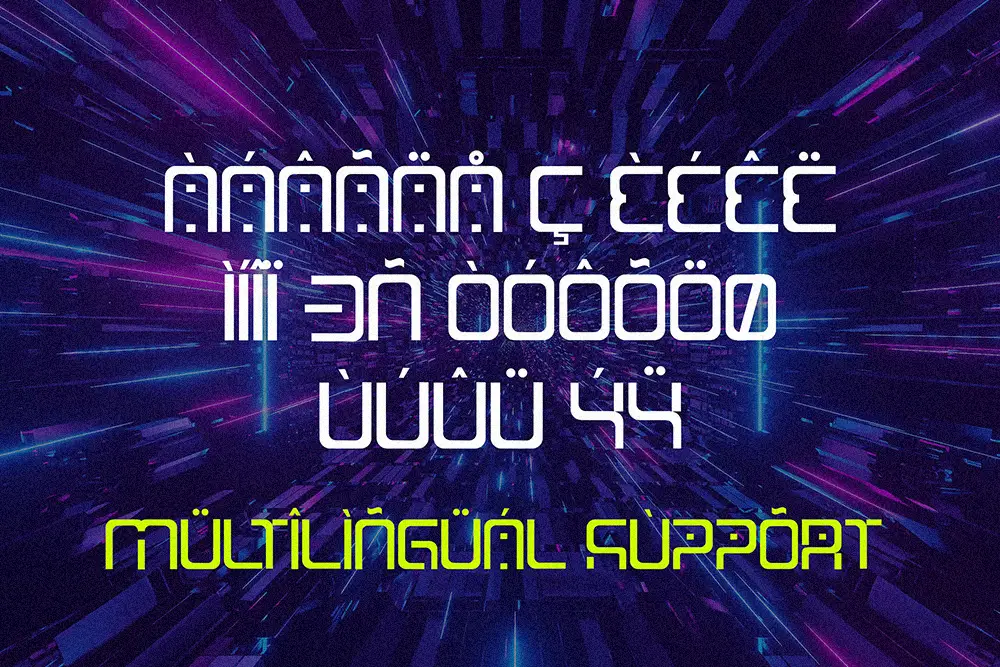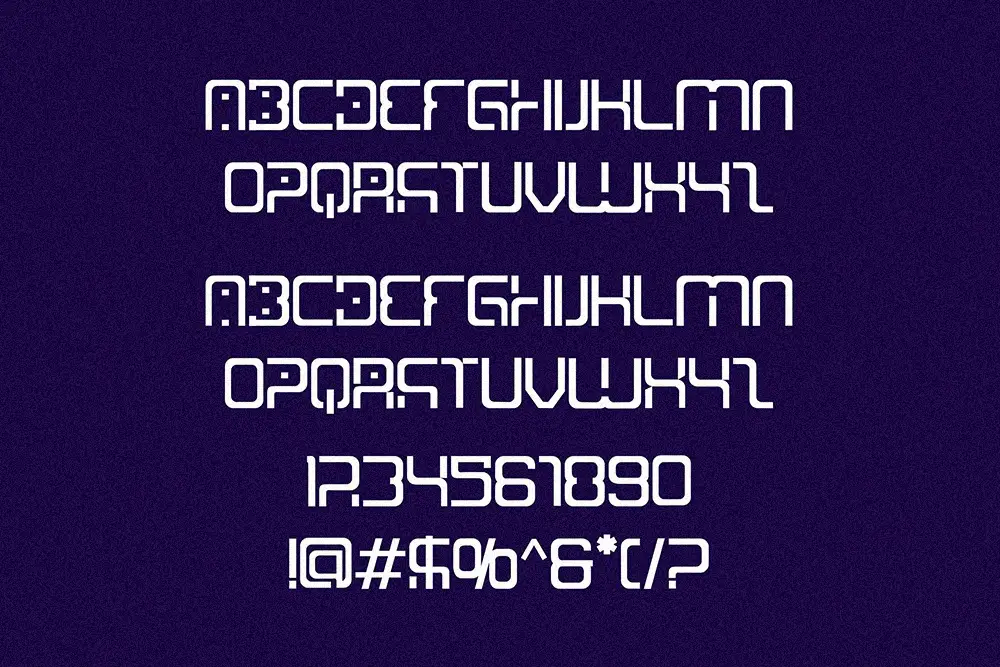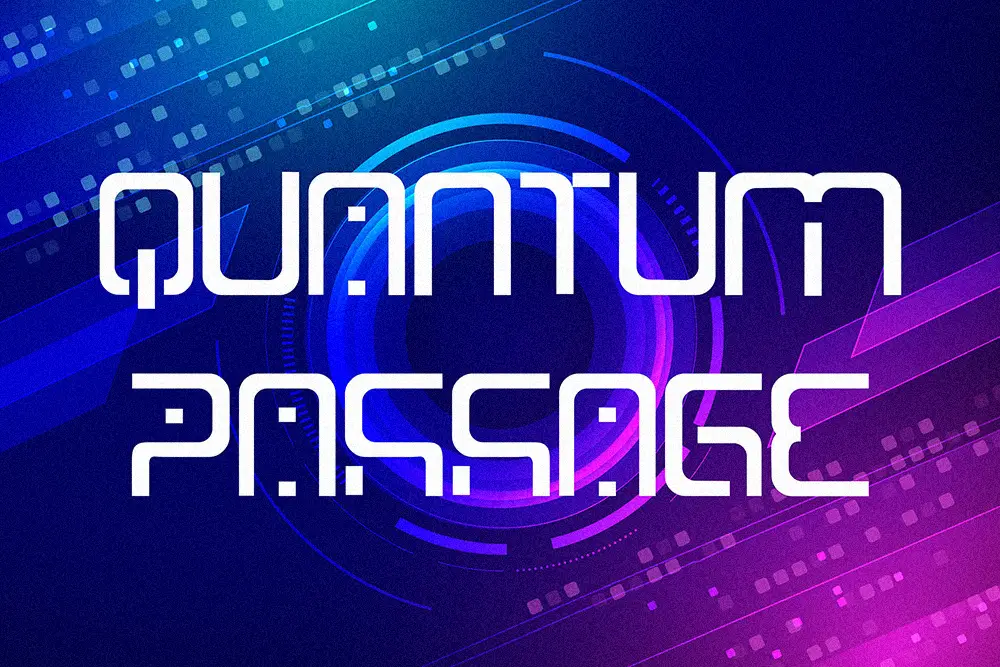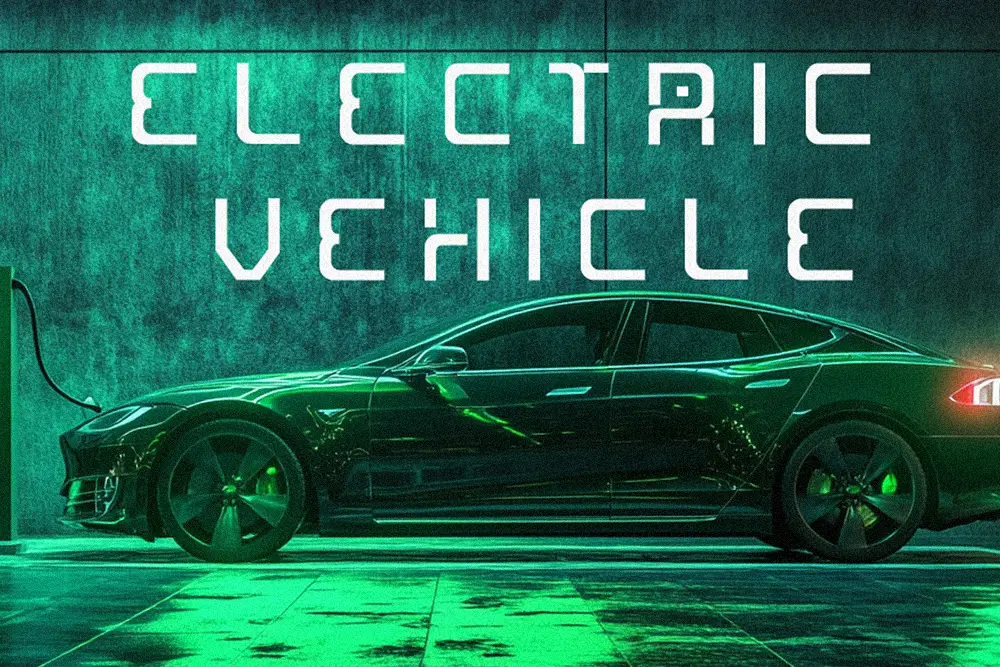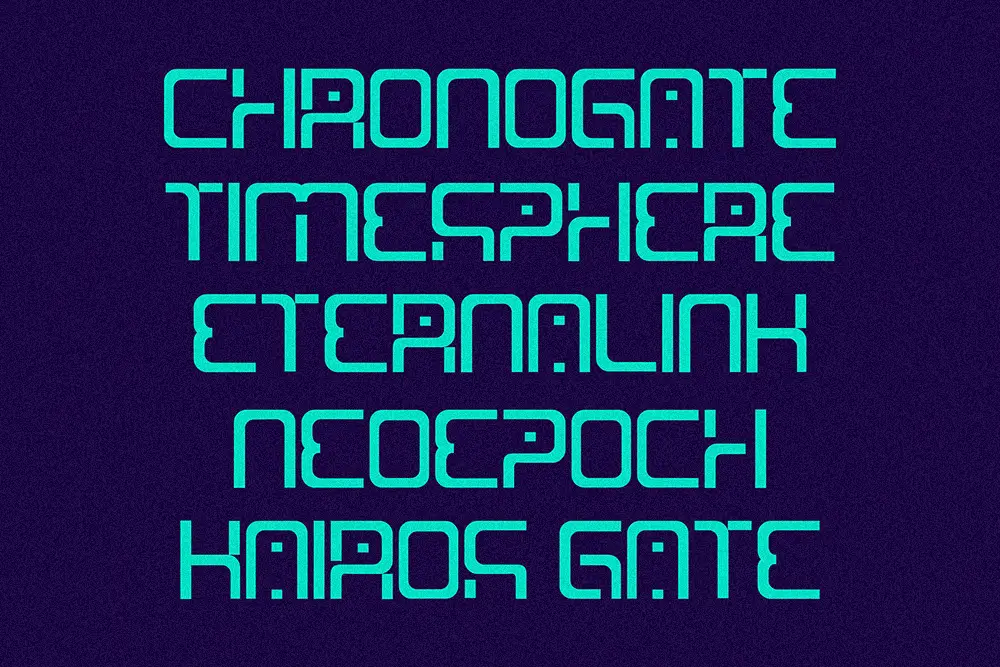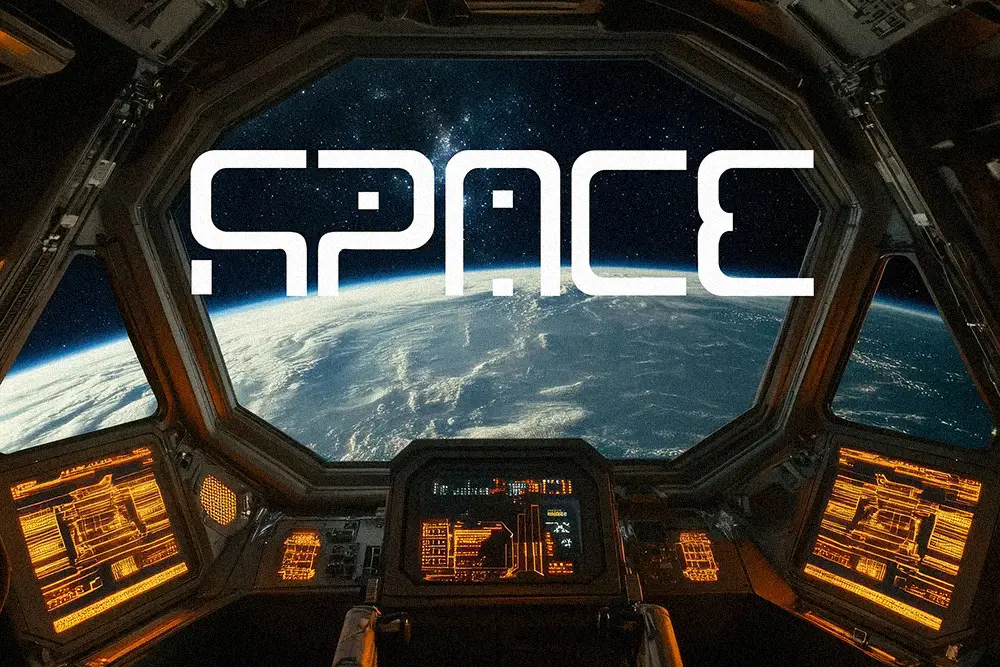
Pixel Sparta – Futuristic Display Font for Bold Digital Design
Typography defines how innovation looks in the digital age. Pixel Sparta – Futuristic Display Font is a bold all-caps typeface designed to bring cutting-edge style into modern projects. With strong geometric forms, multilingual support, and unique alternates in numbers, Pixel Sparta delivers the perfect balance of power and futuristic flair.
From gaming logos to tech branding, this futuristic display font makes every design project look forward-thinking and ready for the future. If you want to add strength, clarity, and innovation to your creative work, Pixel Sparta is the font you need.
Futuristic Display Font with Bold All-Caps
Pixel Sparta is built as an all-caps futuristic display font that radiates power and modern energy. Each letterform is crafted with sharp geometry and pixel-inspired balance, making it ideal for sci-fi posters, digital campaigns, and tech branding. Its strong extended forms give your headlines authority while maintaining sleek readability.
By using Pixel Sparta, you communicate not just words—but a vision of the future.
Key Features of Pixel Sparta – Futuristic Display Font
Designers value fonts that go beyond style. Here’s why Pixel Sparta – Futuristic Display Font stands out:
- All Caps: Designed entirely in uppercase for bold impact
- Multilingual Support: Extended Latin coverage for international use
- Alternates in Numbers: Unique numeral variations to add creativity
- Pixel-Inspired Design: Futuristic digital feel perfect for tech projects
- High Readability: Bold yet clear for both print and screen usage
Why Designers Love Pixel Sparta
Creative professionals choose Pixel Sparta because it delivers everything a futuristic display font should provide: strength, innovation, and usability.
Here’s why it’s a favorite:
- Modern Identity: Perfect for startups, gaming brands, and digital products
- Creative Flexibility: Numeric alternates allow for distinctive visuals
- Global Reach: Multilingual support means you can design for worldwide audiences
- Tech-Ready Aesthetic: Looks professional across websites, digital media, and gaming platforms
Pixel Sparta for Logos and Branding
Logos need impact, and Pixel Sparta provides it. As a futuristic display font, it’s ideal for tech startups, gaming studios, and innovative brands that want to stand out. Its all-caps structure ensures logos remain bold and authoritative, while its clean futuristic styling signals innovation.
Pixel Sparta in Posters and Headlines
Posters and headlines are about grabbing attention instantly. Pixel Sparta thrives in this role. This futuristic display font dominates layouts, making event posters, esports graphics, and advertising campaigns impossible to ignore. Its pixel-inspired styling adds uniqueness, while its strength ensures legibility even in large-scale designs.
Pixel Sparta in Gaming and Digital Media
Gaming and digital branding demand fonts that look futuristic yet professional. Pixel Sparta is the futuristic display font built for this world. It’s perfect for esports branding, YouTube thumbnails, Twitch overlays, and digital products. Its numeric alternates give gaming identities a unique twist, and its multilingual support makes it globally relevant.
Why Pixel Sparta is the Futuristic Display Font You Need
Trends in design show a move toward bold futuristic aesthetics. Pixel Sparta captures this perfectly. As a futuristic display font, it offers all-caps strength, pixel-inspired geometry, multilingual support, and numeric alternates—making it the ultimate choice for designers in tech, gaming, and digital industries.
By choosing Pixel Sparta, you’re investing in a typeface that speaks the language of innovation and authority.
Pixel Sparta – Futuristic Display Font is more than just typography—it’s a design weapon for creators who want their work to feel bold, modern, and future-ready. With OTF, TTF, and WOFF formats, multilingual support, and creative numeric alternates, it’s crafted for professional use across industries.
Don’t just design—dominate the future with Pixel Sparta.